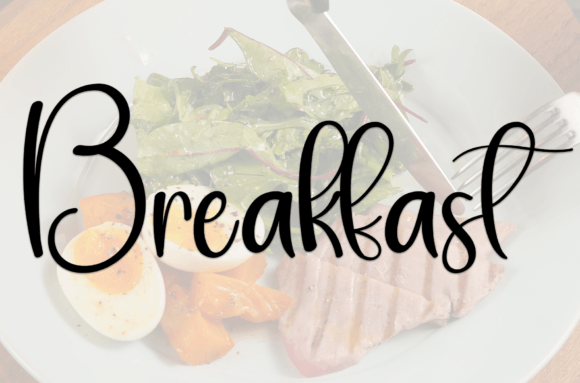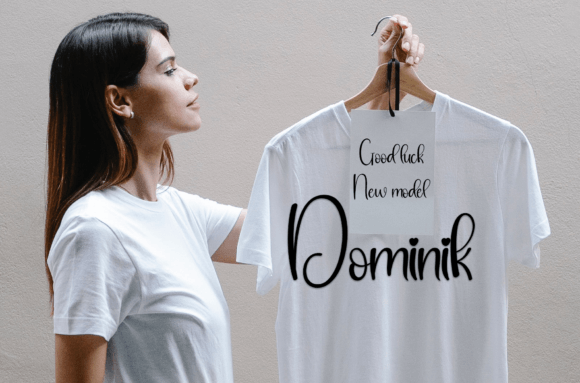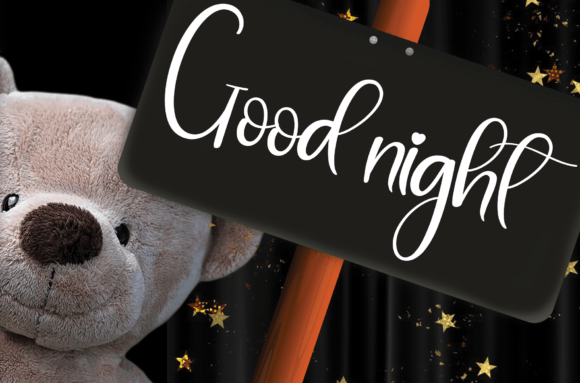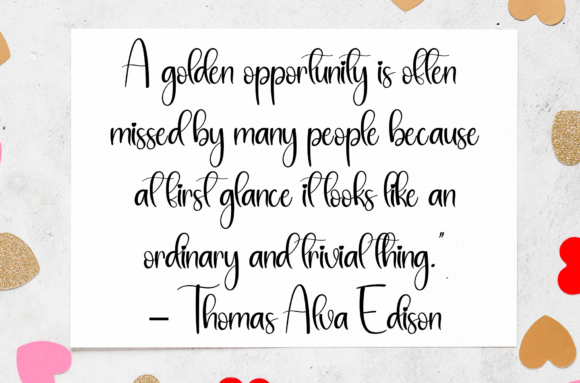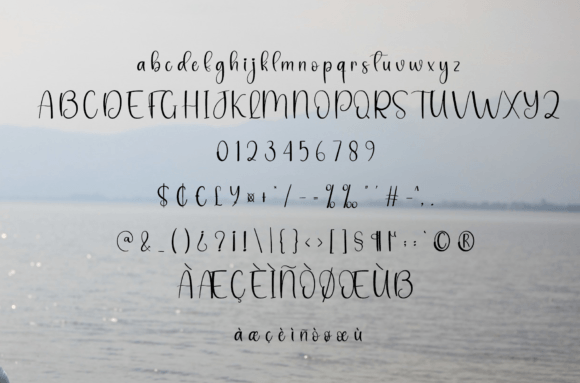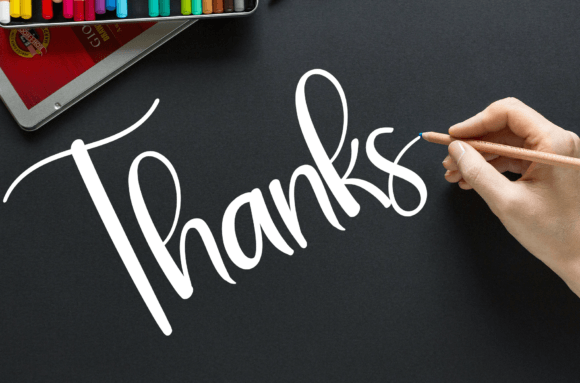
Introduction to House Bakery Font
House Bakery is a sweet and friendly handwritten font.
Creative and cute, this font is ideal for writing wedding invitations, cards, or any other design that might need a fun touch .
Key Features of House Bakery Font